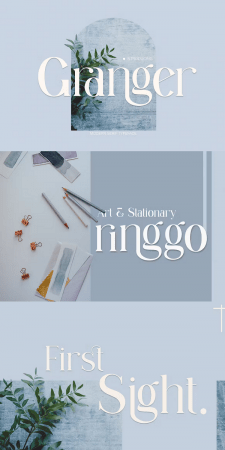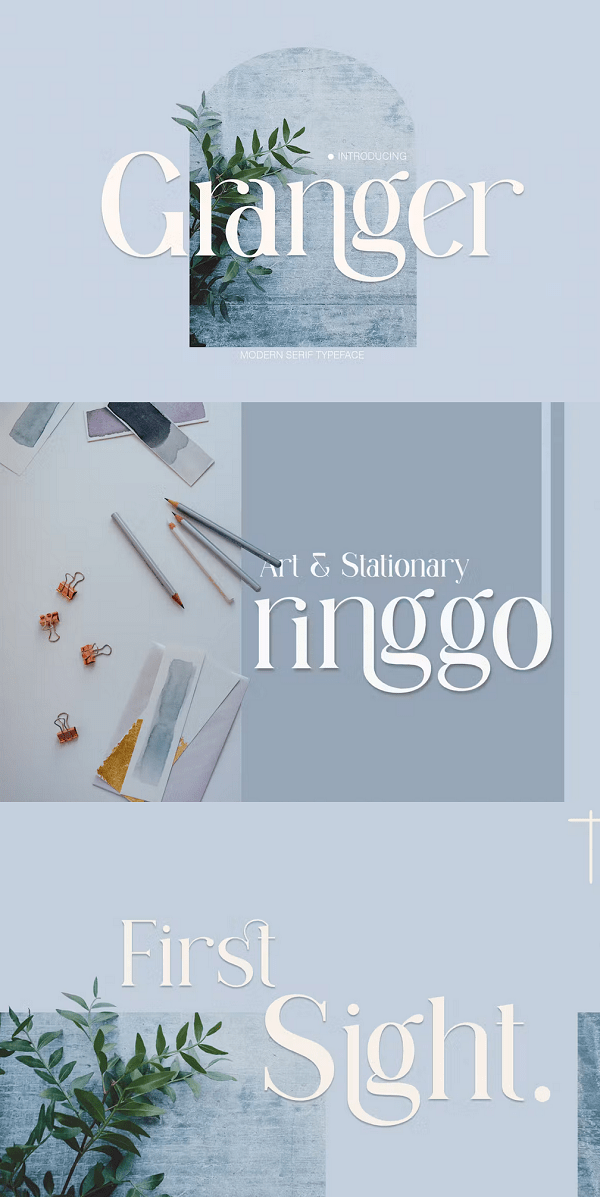
EE - Granger Ligature Serif Typeface 7ZWFSZ8
Granger is a elegant and classy serif typeface – This font is both modern and nostalgic and works great for logos, magazine, social media. Already matched up and ready to be used together for your next design! For those of you who are needing a touch of elegant, stylish, classy, chic and modernity for your designs, this font was created for you!
Granger was built with OpenType features and includes ligatures, numbers, punctuation, and it also supports other languages.